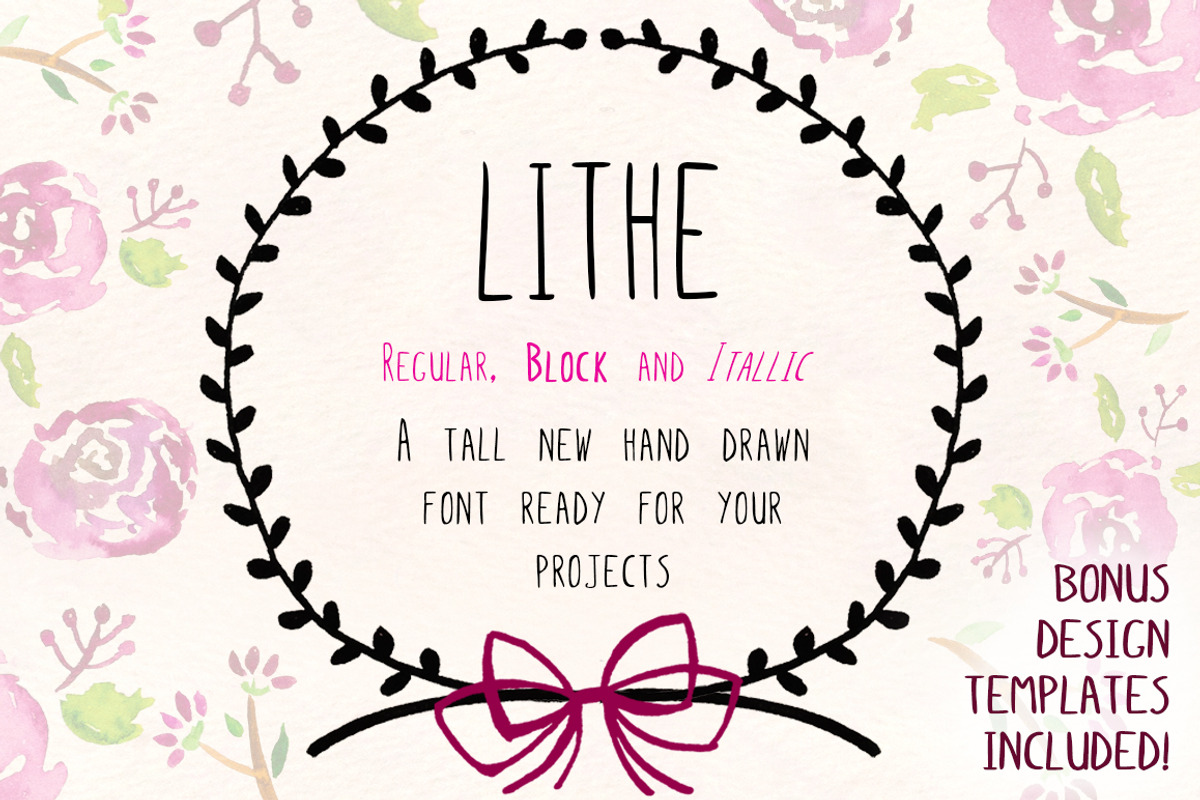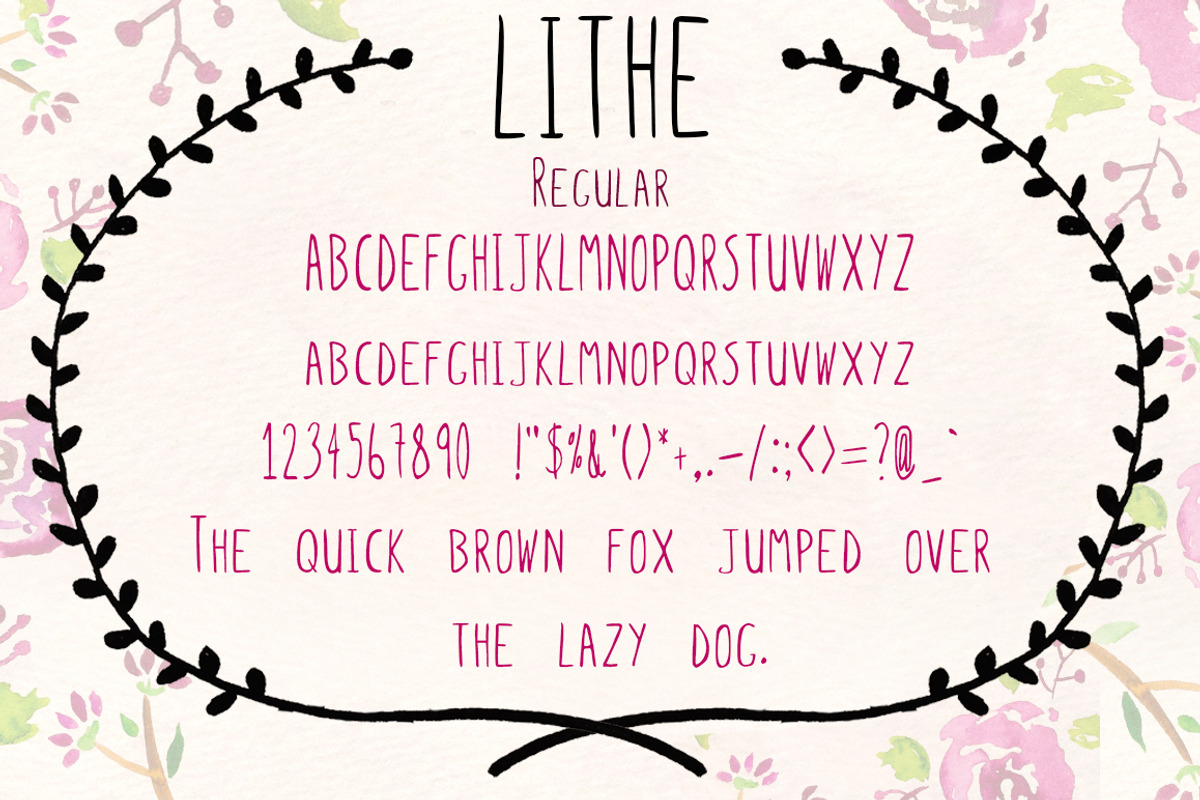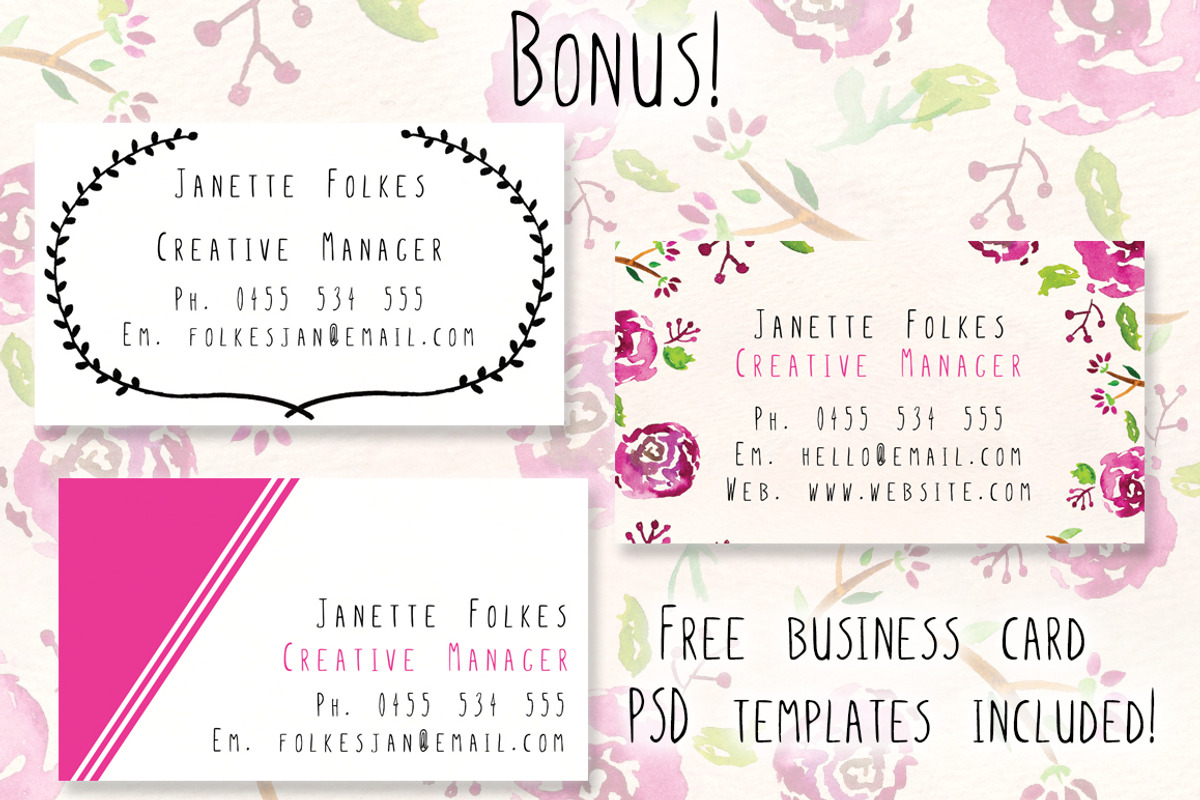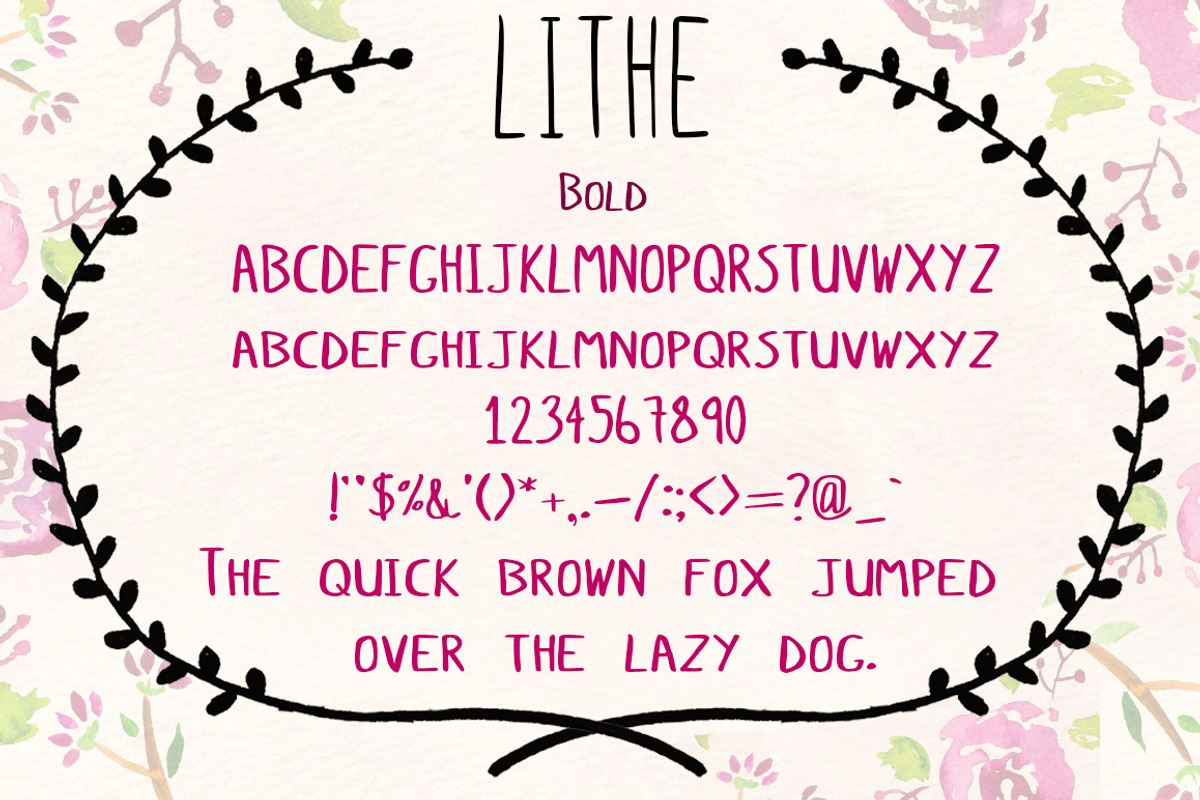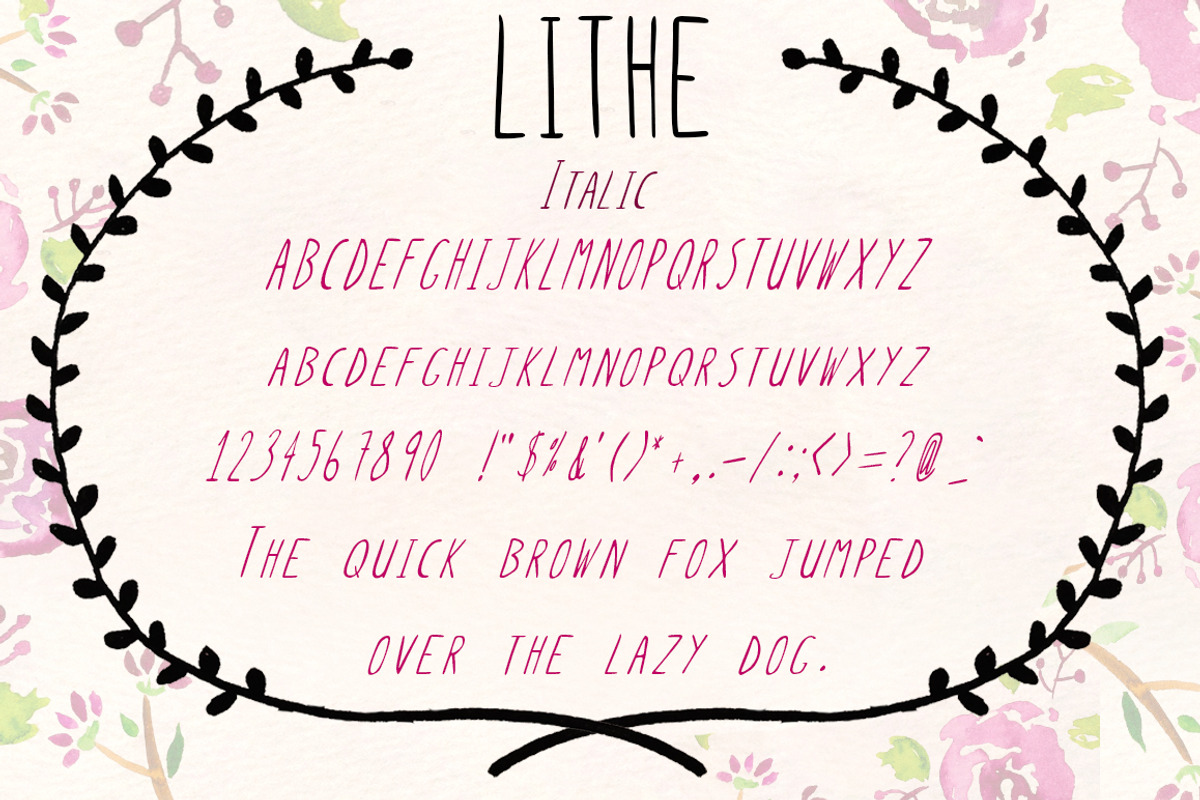
Lithe HandDrawn Font + Bold & Italic
Lithe HandDrawn Font + Bold & Italic by Violet LeBeaux is a font selected for branding, posters, packaging, typography.
- Lithe comes with Regular, Bold and Italic options including uppercase and (smaller capital) lowercase, numerals and punctuation.
- Both the upper and lowercase characters appear as capital letters with a variation in height to make the difference obvious and interesting.
Why Lithe HandDrawn Font + Bold & Italic is worth a look
Lithe HandDrawn Font + Bold & Italic by Violet LeBeaux fits naturally into Branding, posters, packaging, typography.